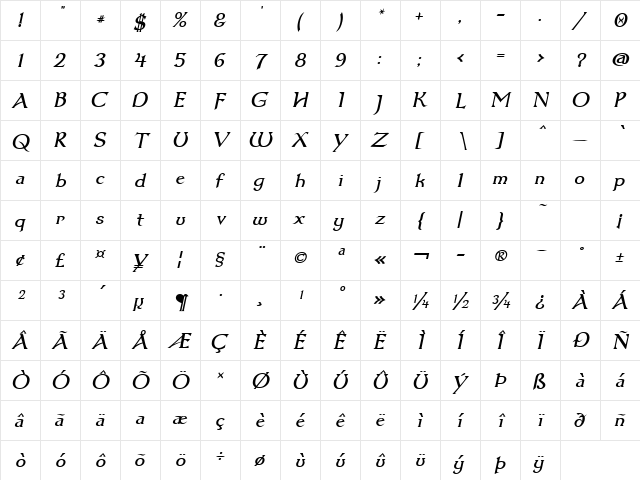
Dumbledor 1 Italic Regular
Design Context for Dumbledor 1 Italic Typeface
Dumbledor 1 Italic takes a measured approach to typography — its balanced proportions and neutral character make it a reliable workhorse for both digital and print work. The dynamic lean of this cut emphasises speed and emphasis in any layout.
Pro Tip: Use Dumbledor 1 Italic for emphasis, pull quotes, and subheadings where its slanted energy can add rhythm to the layout.